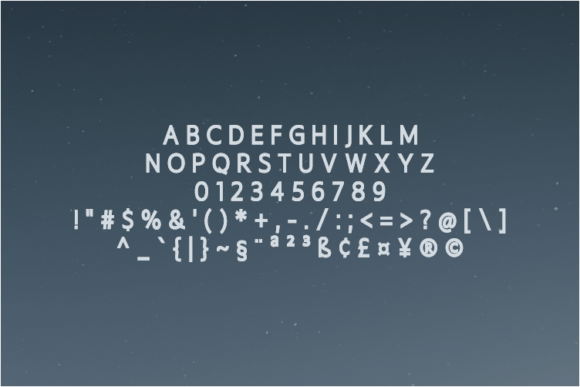
Introduction to Selvhina Font
Selvhina is a modern sans serif font.
Selvhina is a modern sans serif font. Clean and sophisticated, this font is the perfect fit for all of your logos, branding, social media, and crafty DIY projects